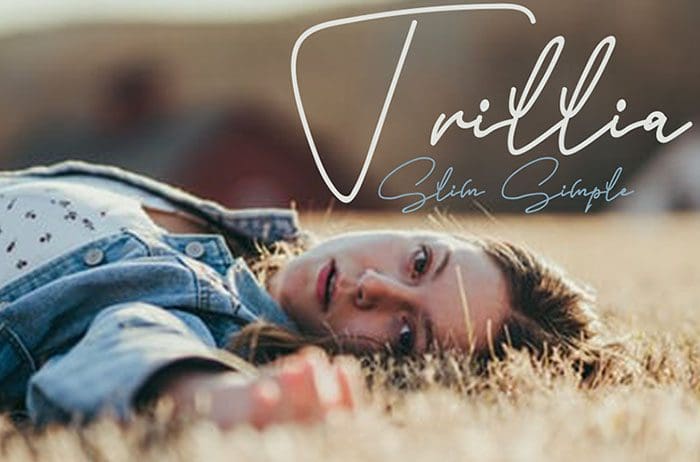
Slim Simple Script Font
Slim Simple script font with an incredibly friendly feel. This font will appeal to a wide range of crafty ideas, from letterheads and titles, to stationery. Designed this font by Inermedia Studio. You can also search more freeĀ Script Fonts.